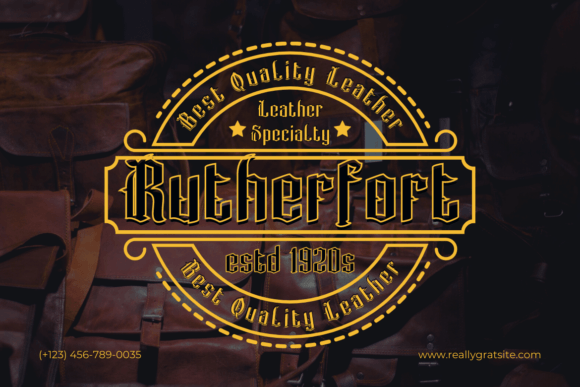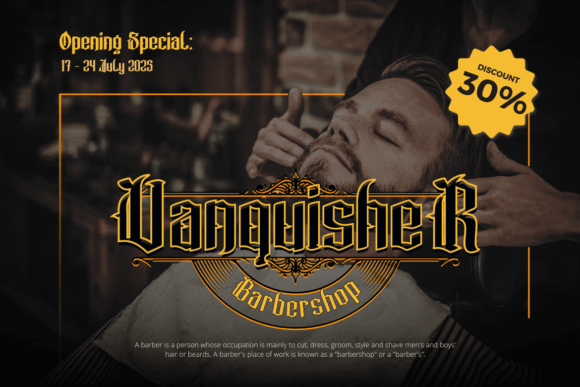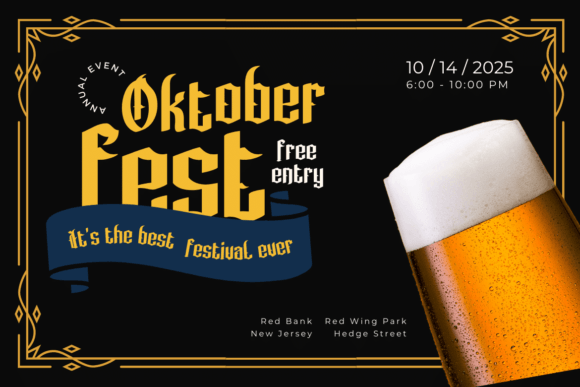
Introduction to Kagok Font
Introducing Kagok Blackletter font Kagok is typography designed with a classic blackletter font style, resulting in a bold and unique anatomical shape.
Kagok is a strong and vintage font inspired by the classic Victorian typeface style combined with a strong style so that it looks bold in your projects This font is perfect for use on projects that need a futuristic, vintage, and elegant style.
Key Features of Kagok Font